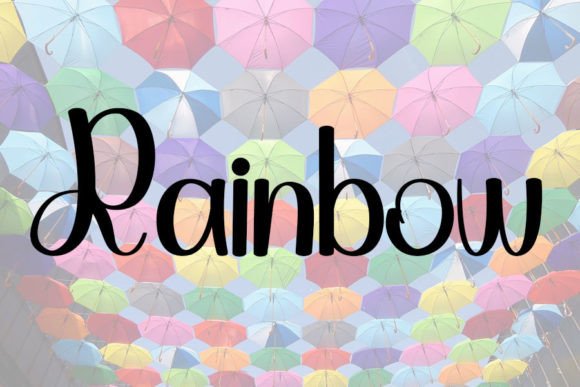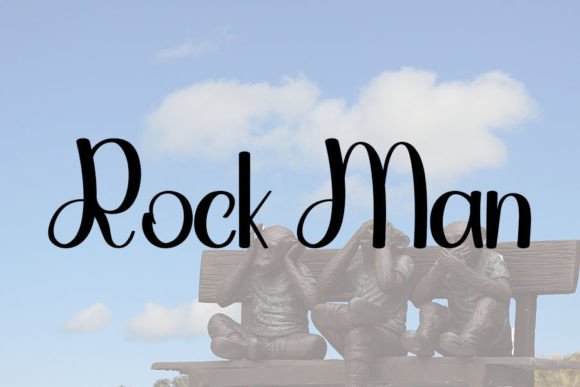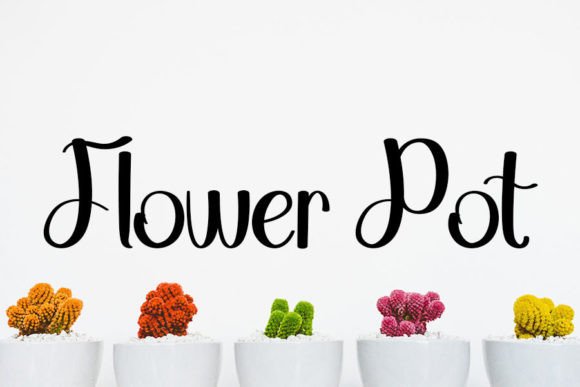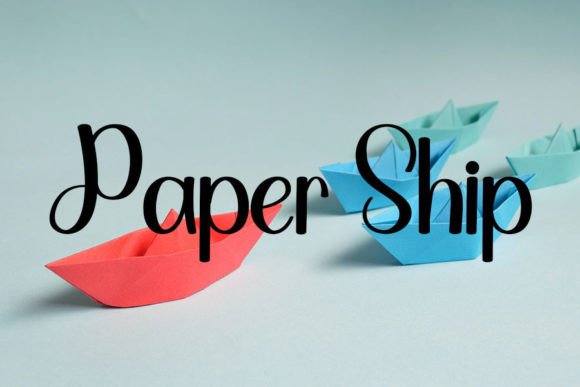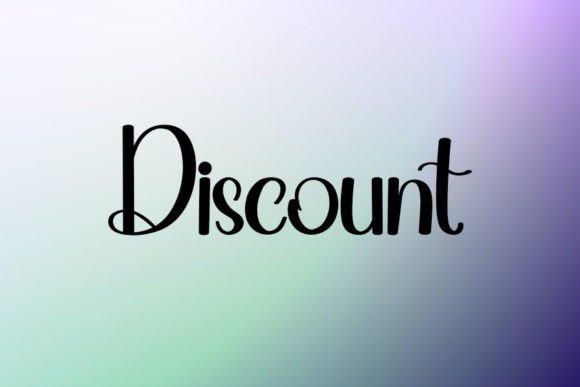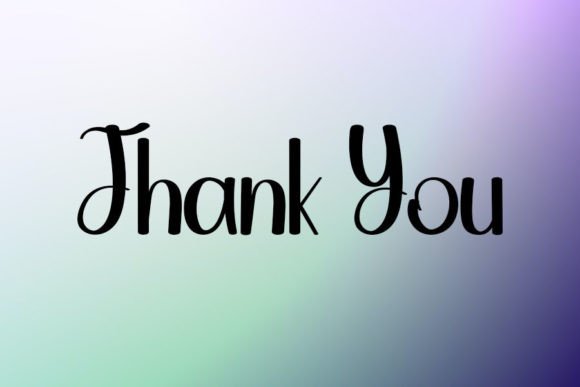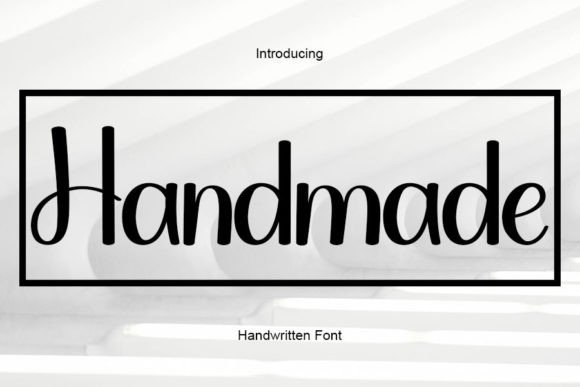
Introducing Handmade Font: Elevate Your Designs with Elegance
Are you on the lookout for a font that adds a touch of sophistication and charm to your projects? Look no further than the Handmade Font, a beautiful handwritten font that embodies elegance and refinement. With its unique and timeless style, this font is sure to capture the hearts of designers and crafters alike.
The Beauty of Handmade Font
Handmade Font is a neat and beautiful handwritten font that boasts an elegant touch, making it perfect for a wide range of projects. Whether you’re working on a logo, branding materials, or marketing collateral, this font is sure to make your designs stand out. Its incredibly distinct style is reminiscent of traditional handwriting, yet it has a modern twist that makes it perfect for contemporary designs.
What Makes Handmade Font Special?
So, what sets Handmade Font apart from other fonts? Here are a few reasons why designers and crafters are falling in love with this beautiful font:
- Unique and Timeless Style: Handmade Font has a classic, timeless quality that makes it perfect for designs that need to stand the test of time.
- Elegant Touch: The font’s elegant touch adds a level of sophistication to any design, making it perfect for high-end brands and luxury products.
- Versatile: Handmade Font is versatile and can be used for a wide range of projects, from logos and branding materials to marketing collateral and packaging.
- Easy to Read: Despite its elegant and refined style, Handmade Font is easy to read, making it perfect for body text and other applications where legibility is key.
How to Use Handmade Font in Your Designs
Using Handmade Font in your designs is easy. Here are a few tips to get you started:
- Pair it with Other Fonts: Handmade Font pairs well with other fonts, including sans-serif and serif fonts. Experiment with different combinations to find the perfect look for your design.
- Use it for Headlines and Titles: Handmade Font is perfect for headlines and titles, where its elegant and refined style can really shine.
- Add it to Your Brand Identity: If you’re looking to create a cohesive brand identity, consider using Handmade Font across all your marketing materials.
Why Designers and Crafters Love Handmade Font
Designers and crafters love Handmade Font for a variety of reasons. Here are a few:
- It’s Easy to Use: Handmade Font is easy to use, even for those who are new to design.
- It’s Versatile: The font’s versatility makes it perfect for a wide range of projects.
- It’s Unique: Handmade Font has a unique and timeless style that sets it apart from other fonts.
In conclusion, Handmade Font is a beautiful handwritten font that embodies elegance and refinement. With its unique and timeless style, it’s perfect for designers and crafters who want to add a touch of sophistication to their projects. Whether you’re working on a logo, branding materials, or marketing collateral, Handmade Font is sure to make your designs stand out.